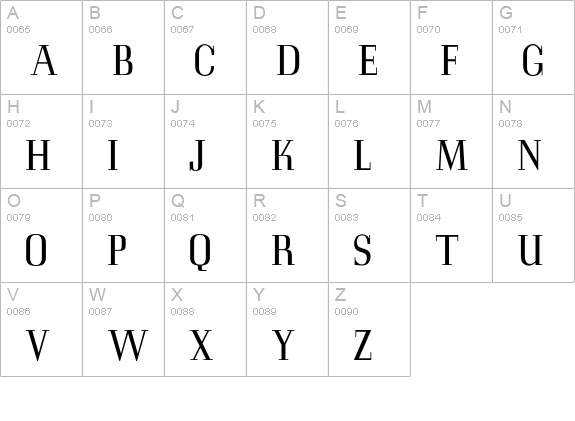
Mercator font is a modern and elegant typeface that exudes sophistication and professionalism. With its clean lines and stylish design, Mercator is perfect for a wide range of projects, from branding to editorial design. This versatile font can easily adapt to different styles and contexts, making it a popular choice among designers and creatives. What sets Mercator font apart is not only its timeless appeal but also its accessibility. The best part? It's completely free! You can download Mercator font for free at FontsMarket.com and start using it in your projects right away. Whether you're working on a website, a poster, or a logo, Mercator font will bring a touch of class and refinement to your design. Don't miss out on this fantastic opportunity to enhance your work with the sleek and stylish Mercator font.